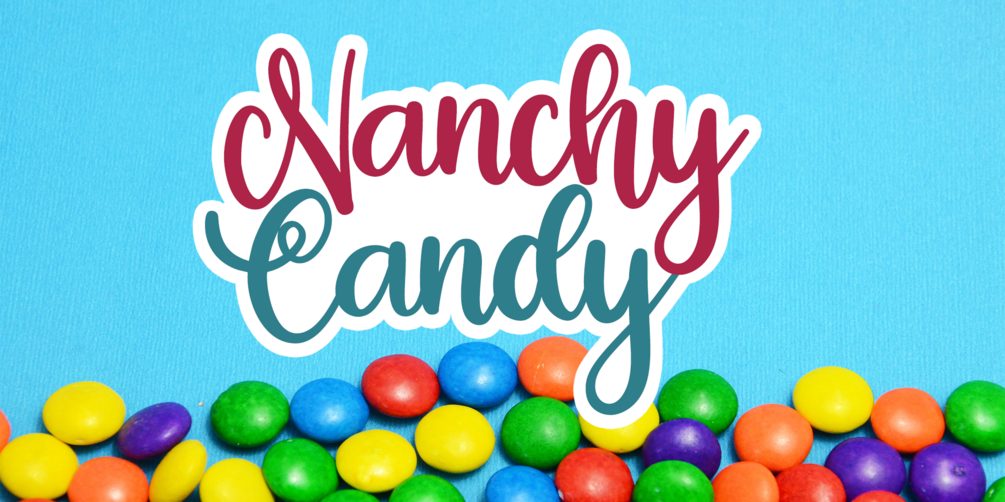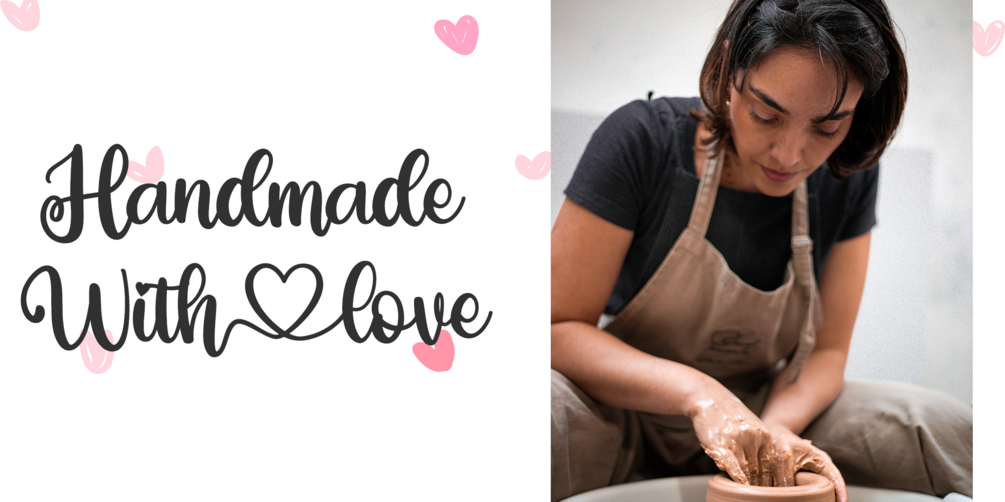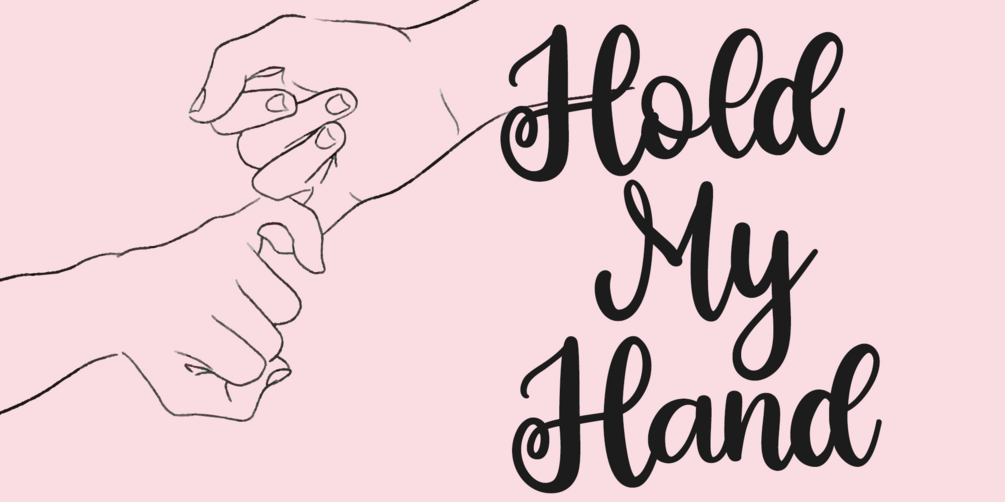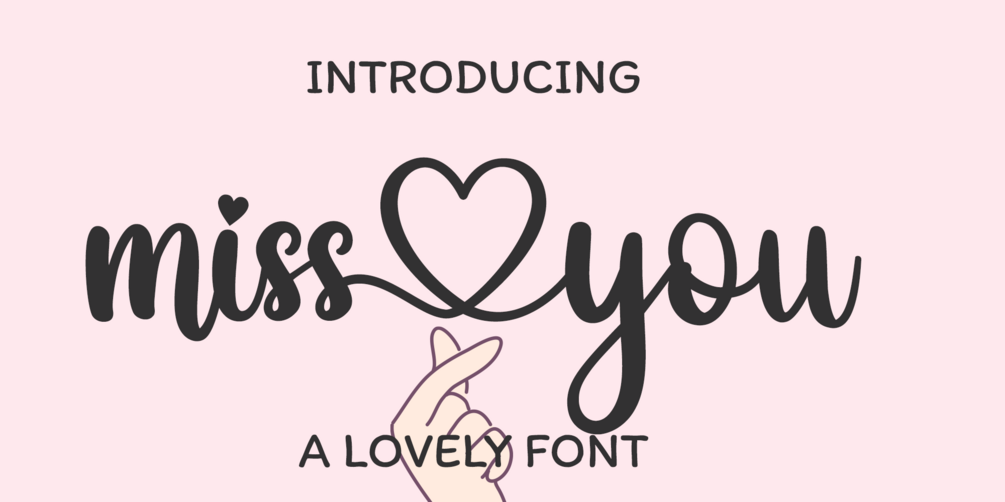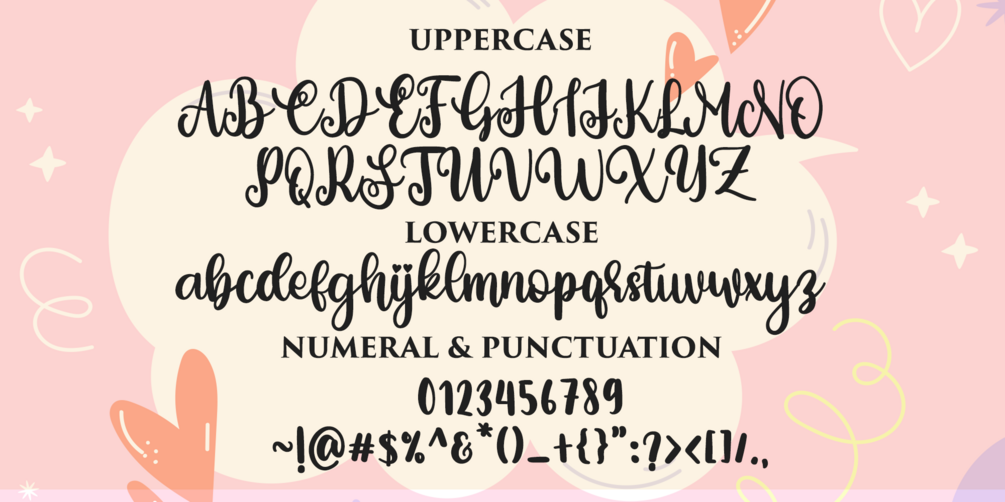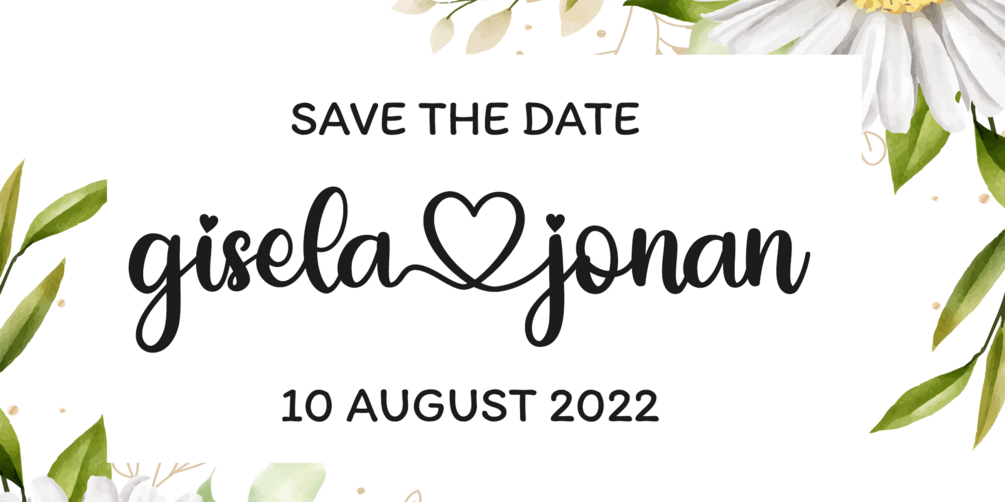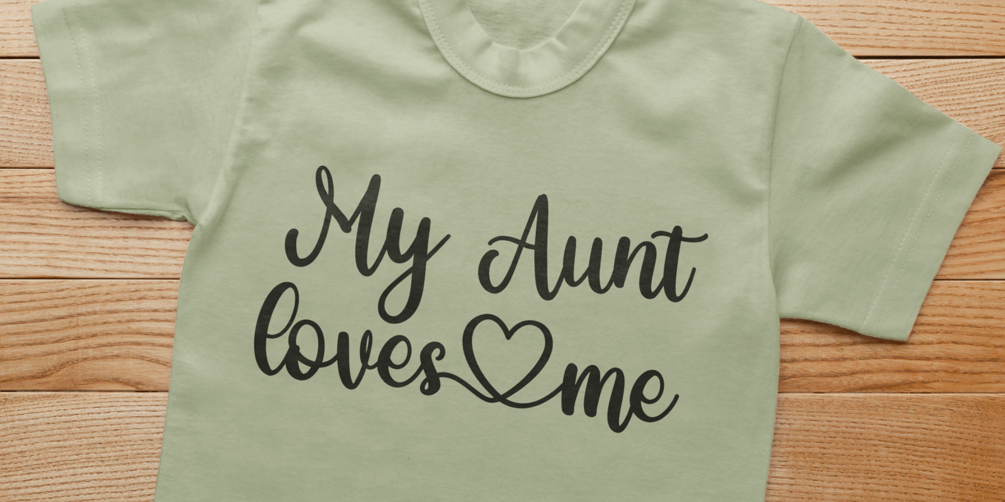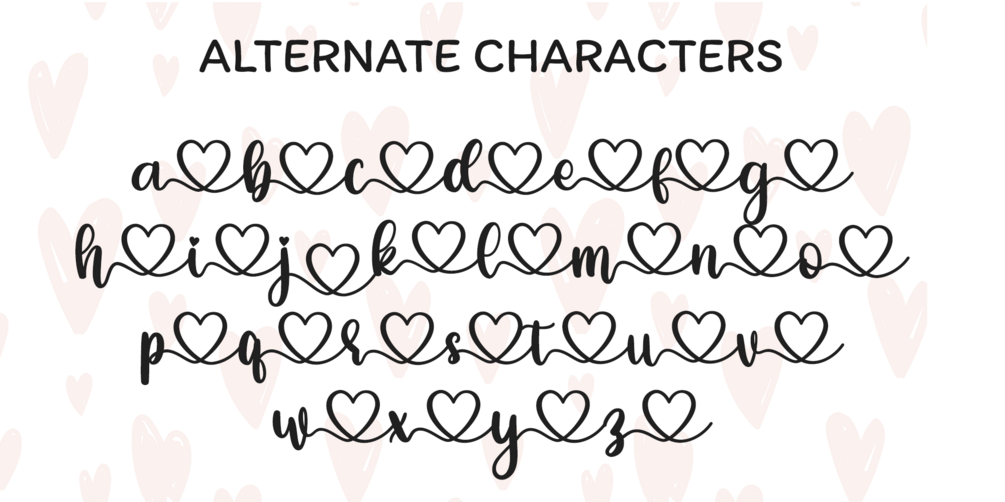
Miss You
Miss You is a romantic and sweet calligraphy typeface with characters that dance along the baseline. It has a casual yet elegant touch, enhanced by heart-connected alternate characters that add a charming and affectionate feel. This font is PUA encoded, ensuring easy access to all glyphs and swashes.
• Multilingual Support
• Ligature Characters
• Alternate Characters (including heart-connected alternates)